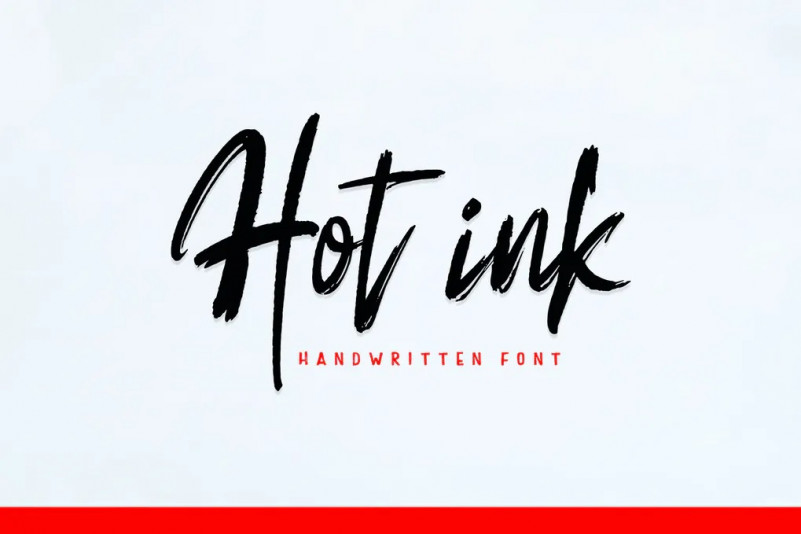
Hot ink Font
Hot ink is a very interesting new brush font. This font family is perfect for branding projects, logos, product packaging, posters, invitations, greeting cards, news, blogs, and more.